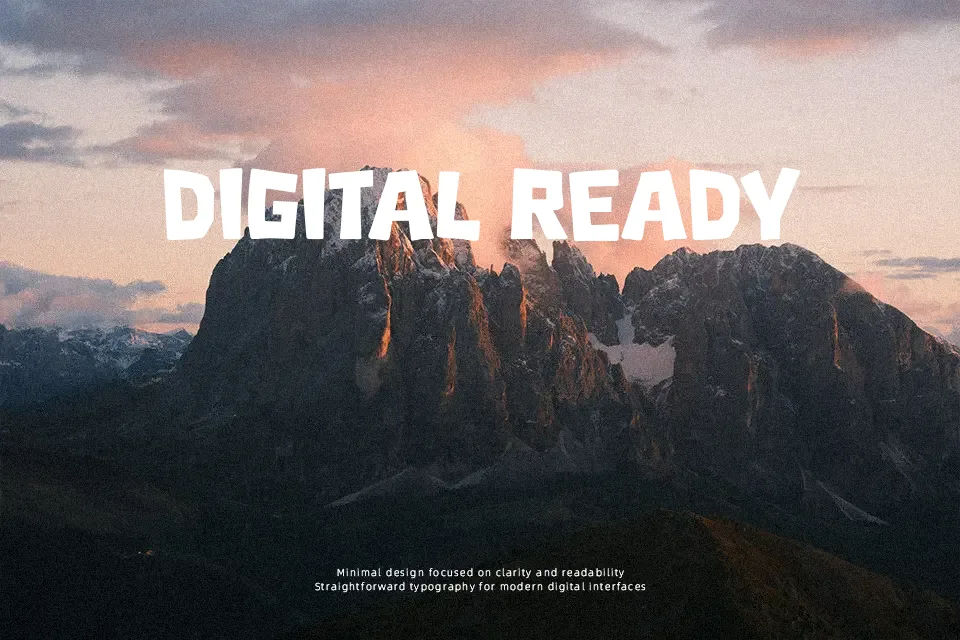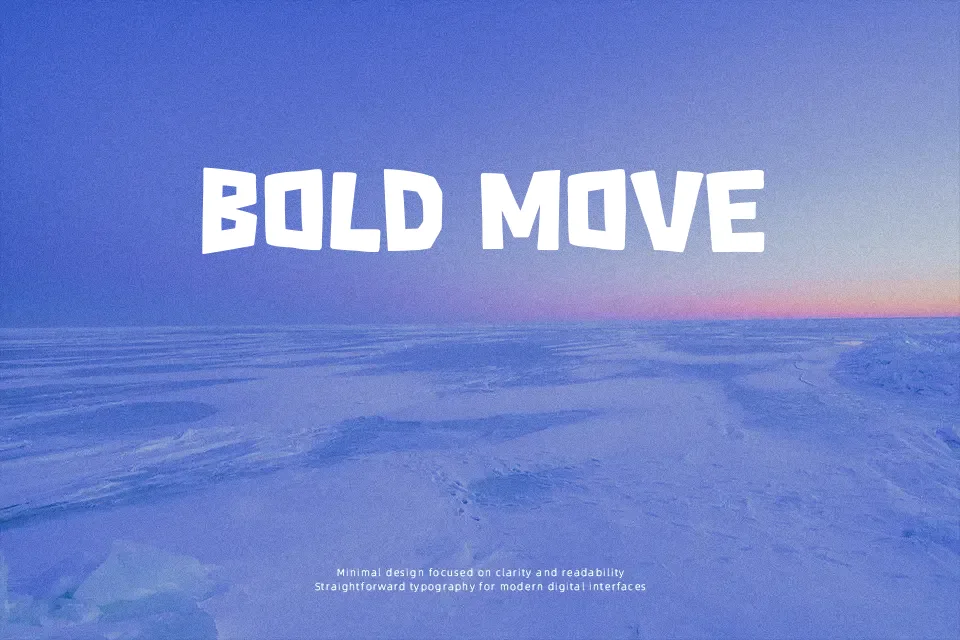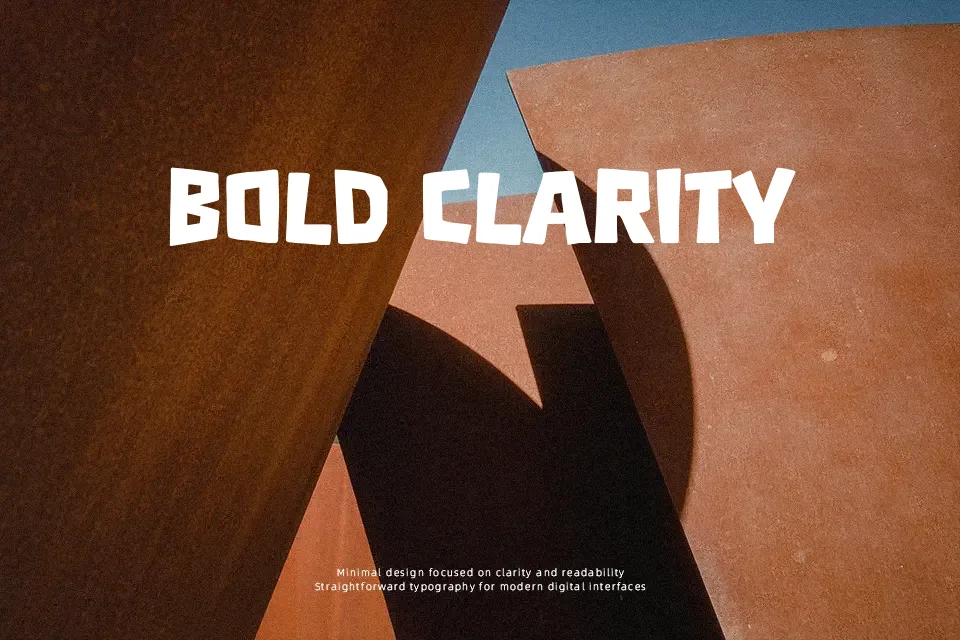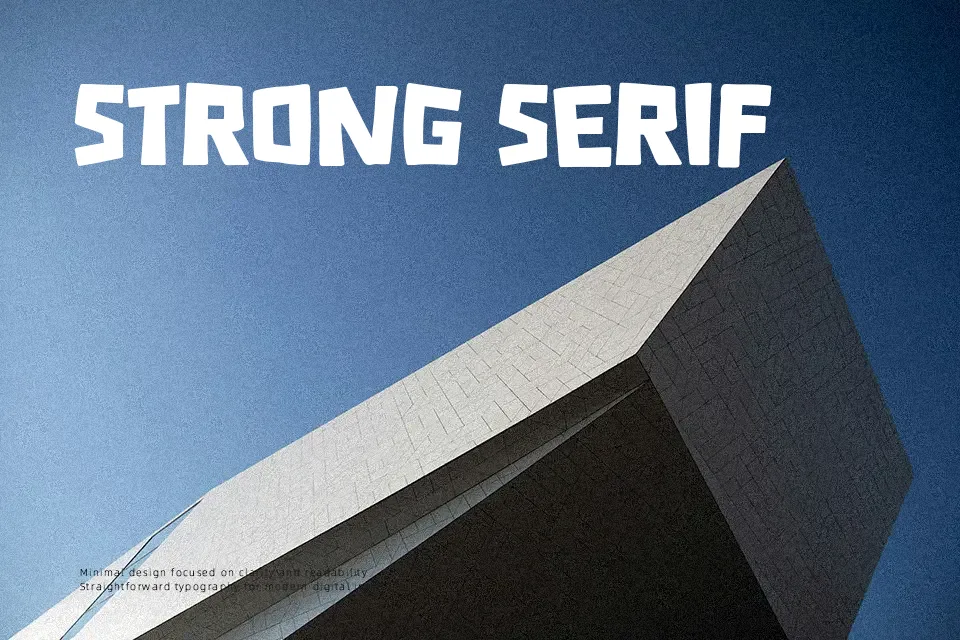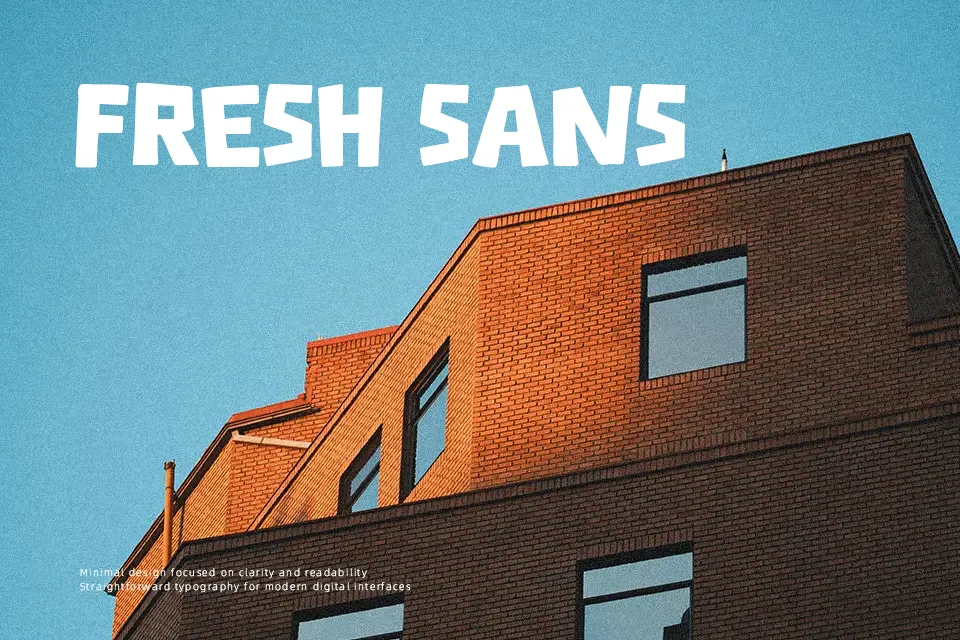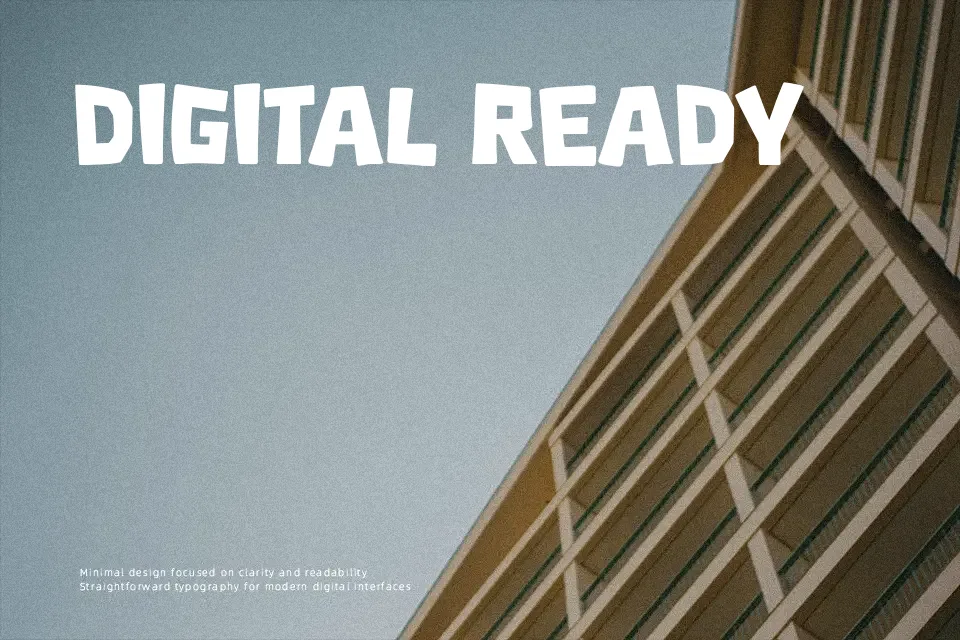
Newyear Coffee Font
Newyear Coffee presents heavy, squared letterforms arranged with compact spacing that gives the text a solid, almost tiled appearance in display settings. The strokes appear thick and fairly uniform, with minimal contrast, so the design leans more toward sturdy shapes than delicate detailing. Proportions feel relatively even across characters, creating a consistent rhythm that helps short words and phrases read clearly at medium to large sizes. However, the dense forms and decorative cartoon styling can make extended reading or very small captions feel visually crowded, especially where letters sit closely together. In practice, this typeface works best when used sparingly as a headline or branding element, where its bold presence becomes a benefit rather than a distraction.
playful poster headlines
informal product packaging
children’s event flyers
coffee shop signage
technical documentation
formal corporate reports
Perfect for headline, logo, and packaging, with a bold and cartoon style.